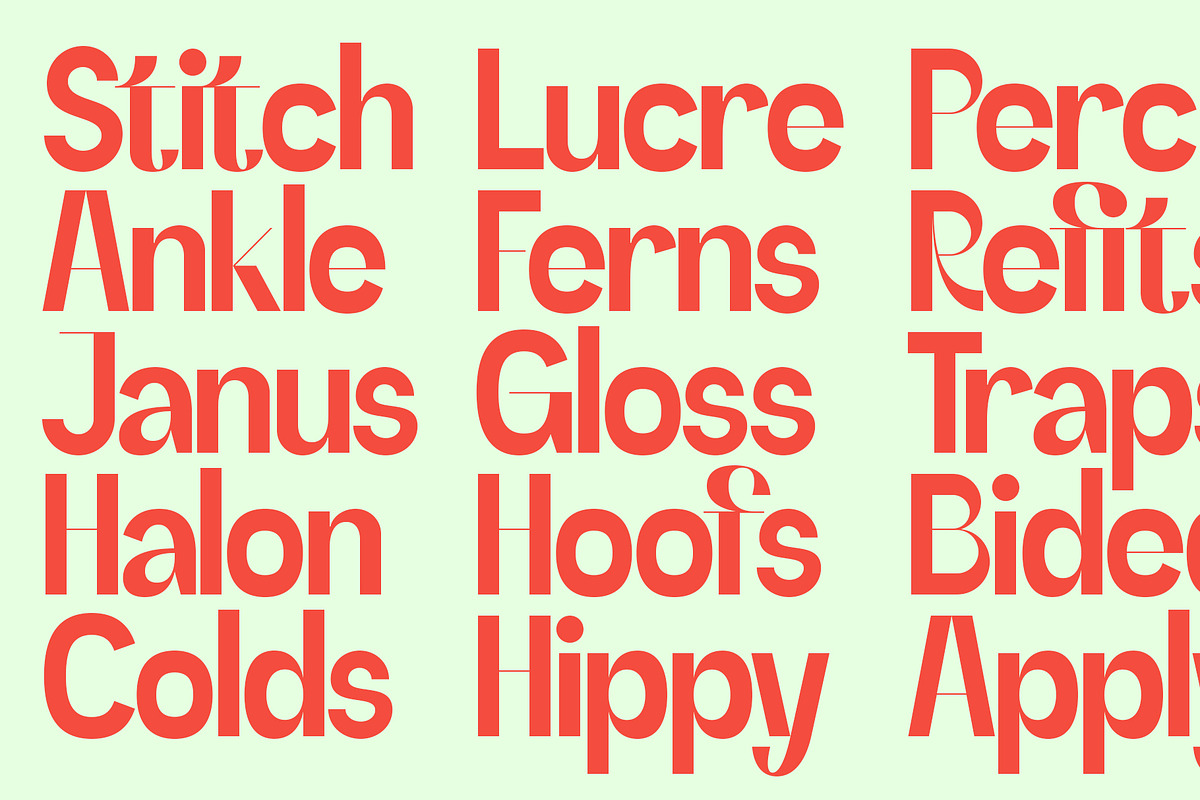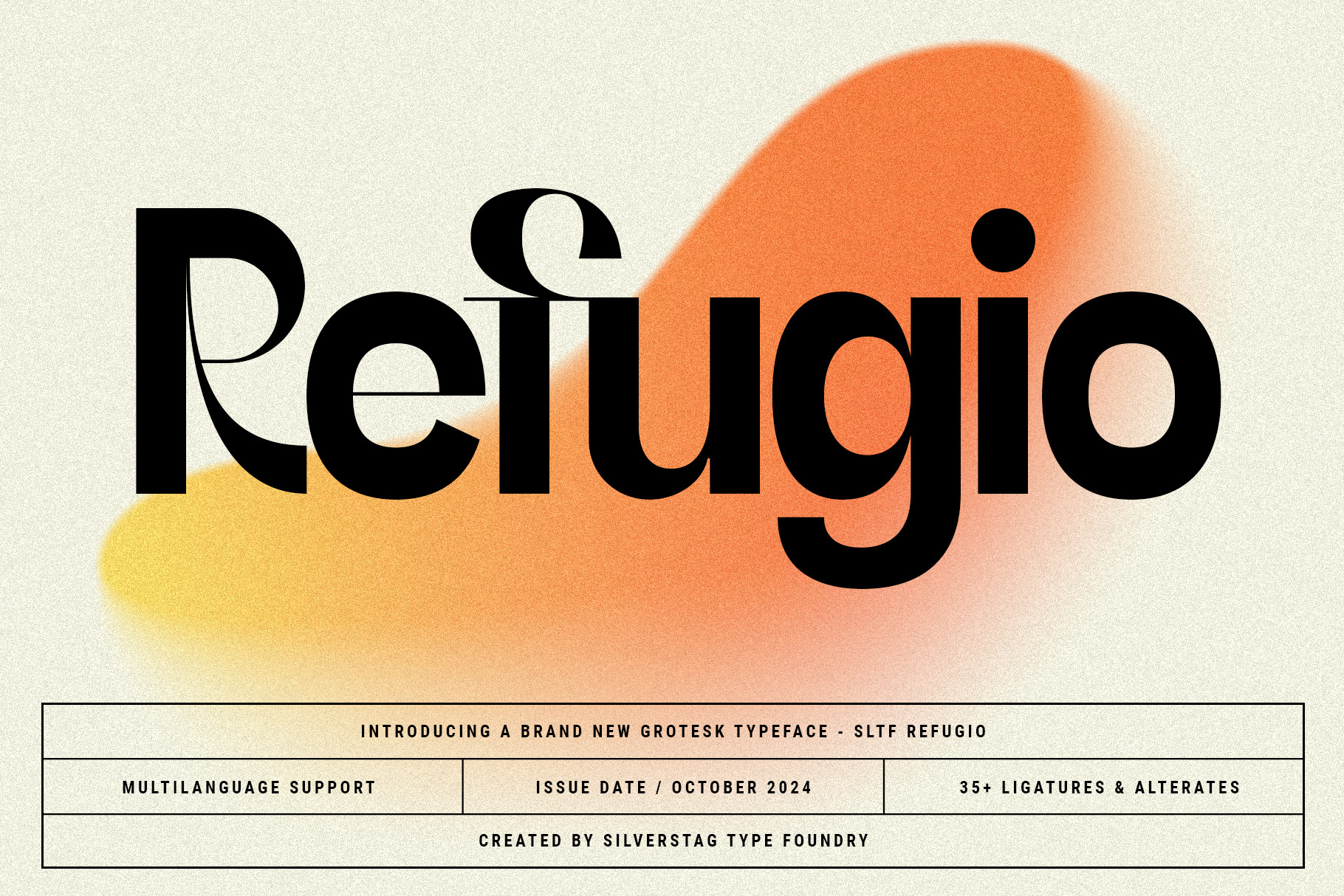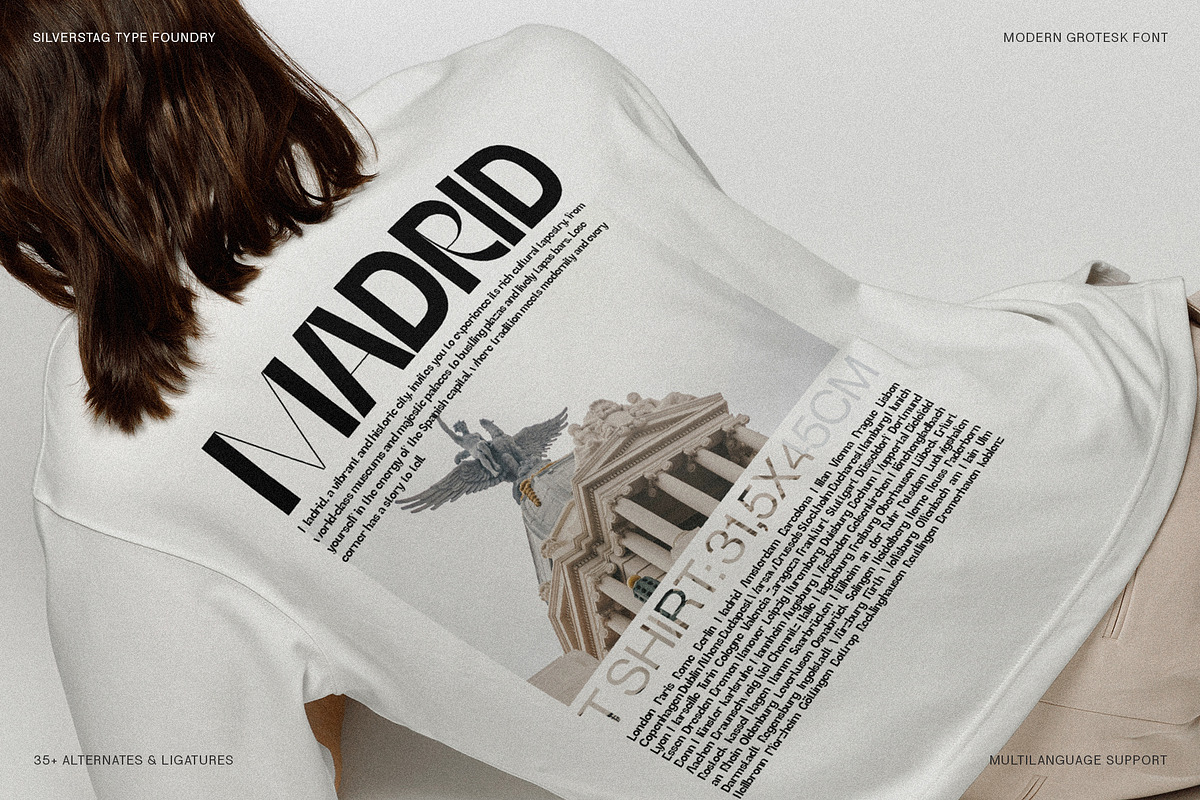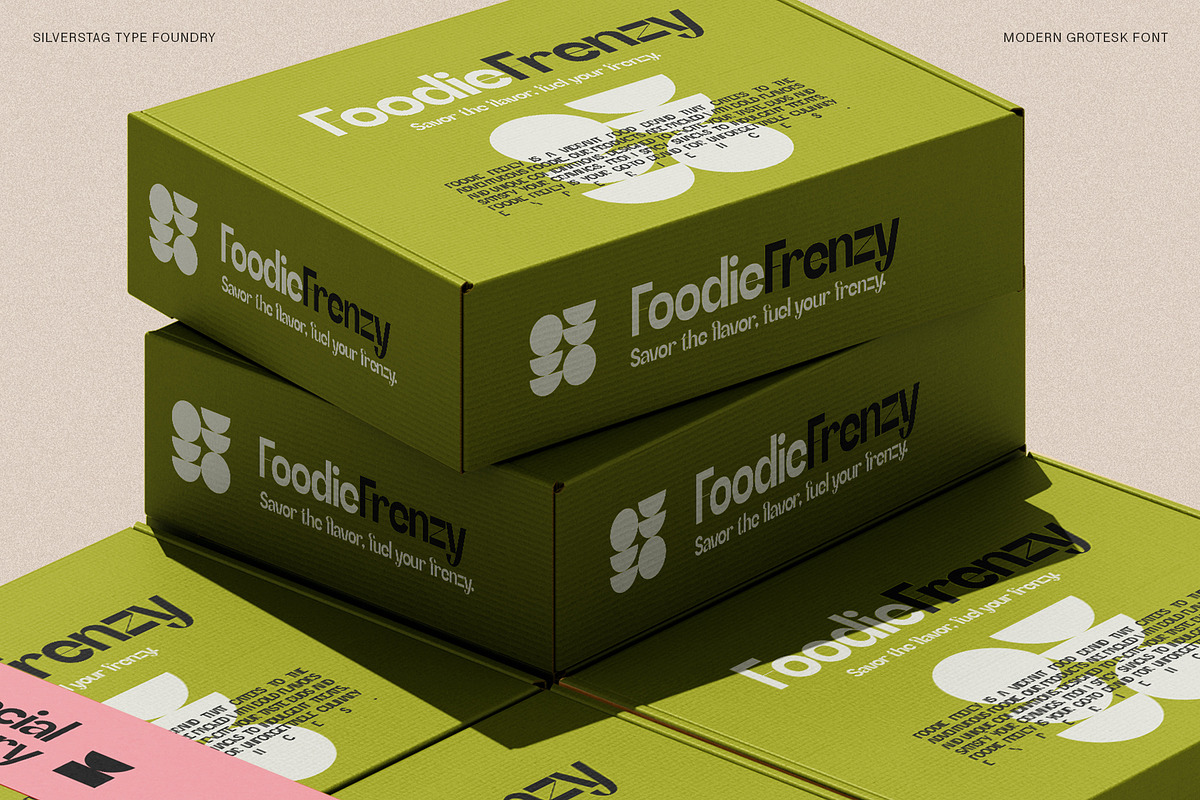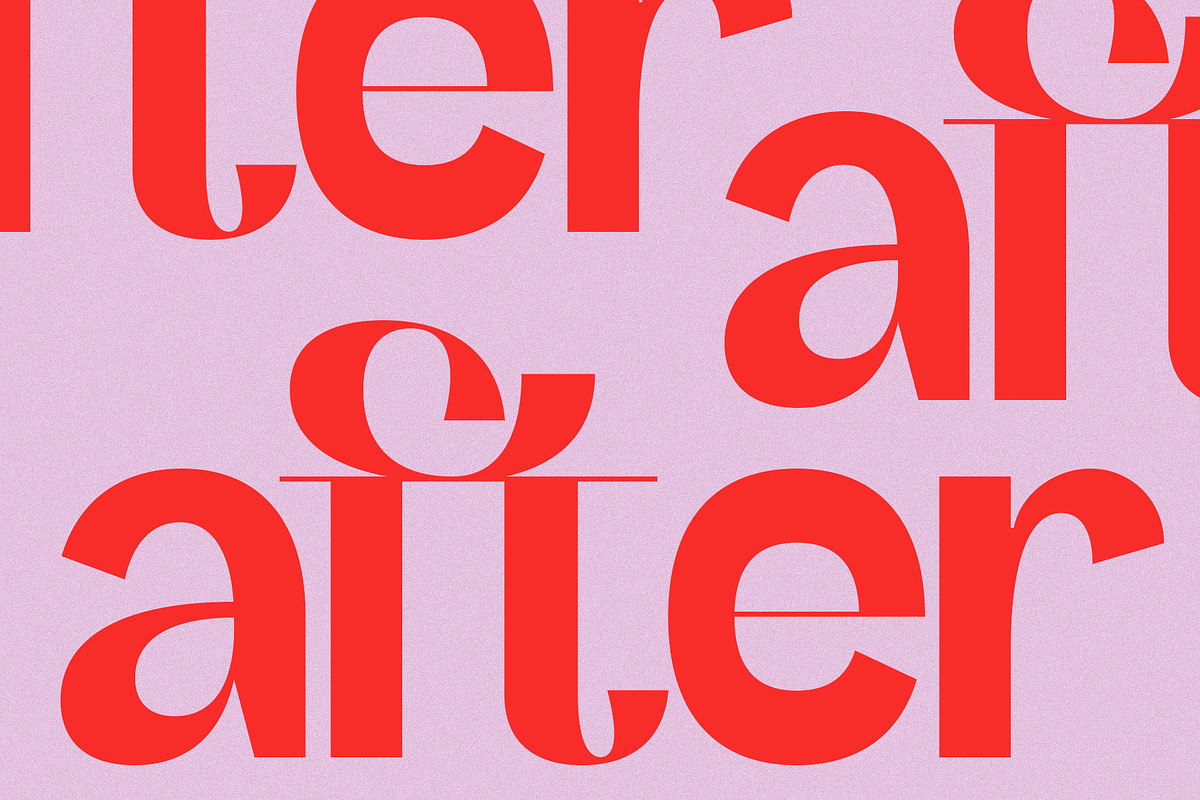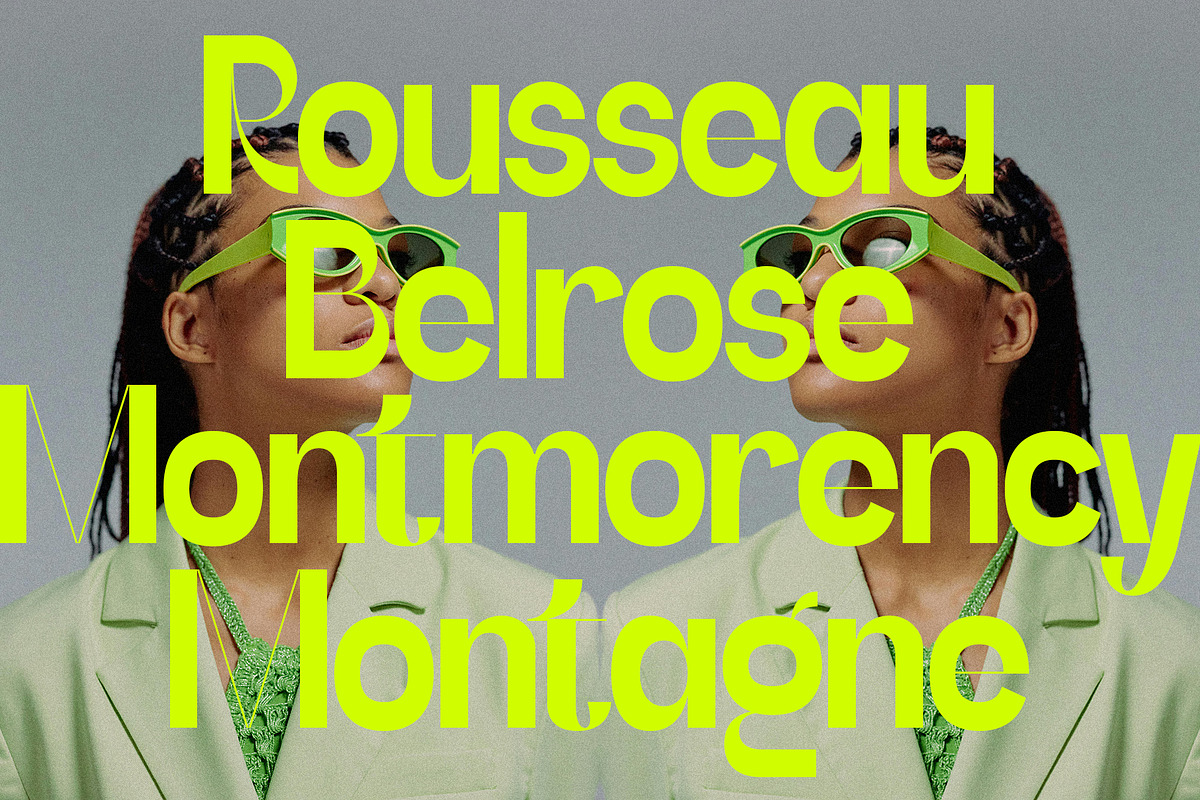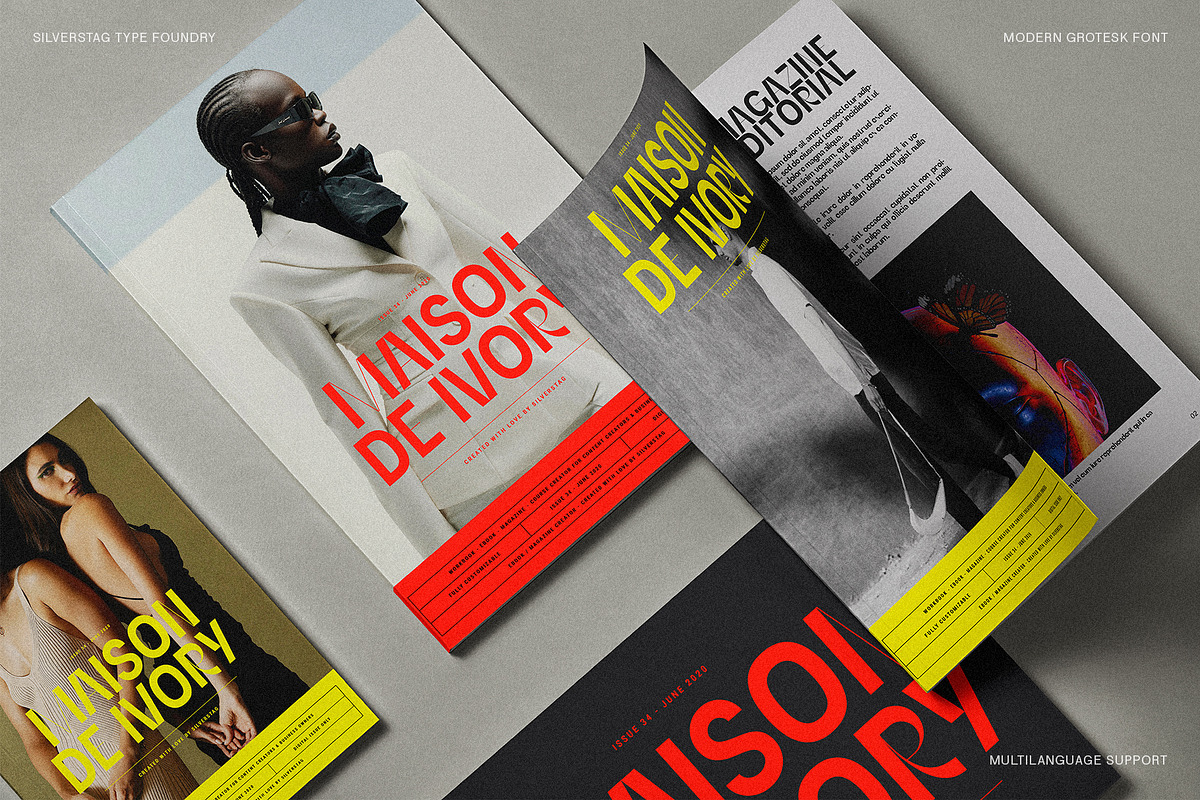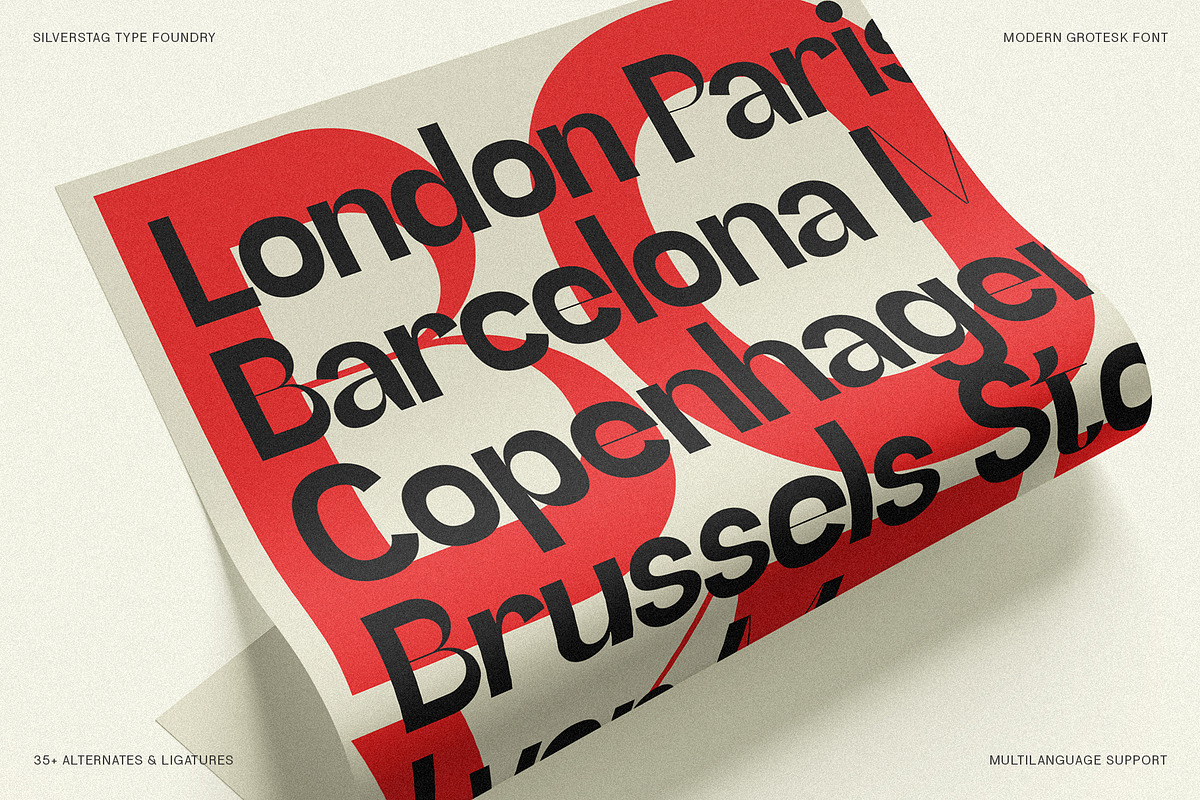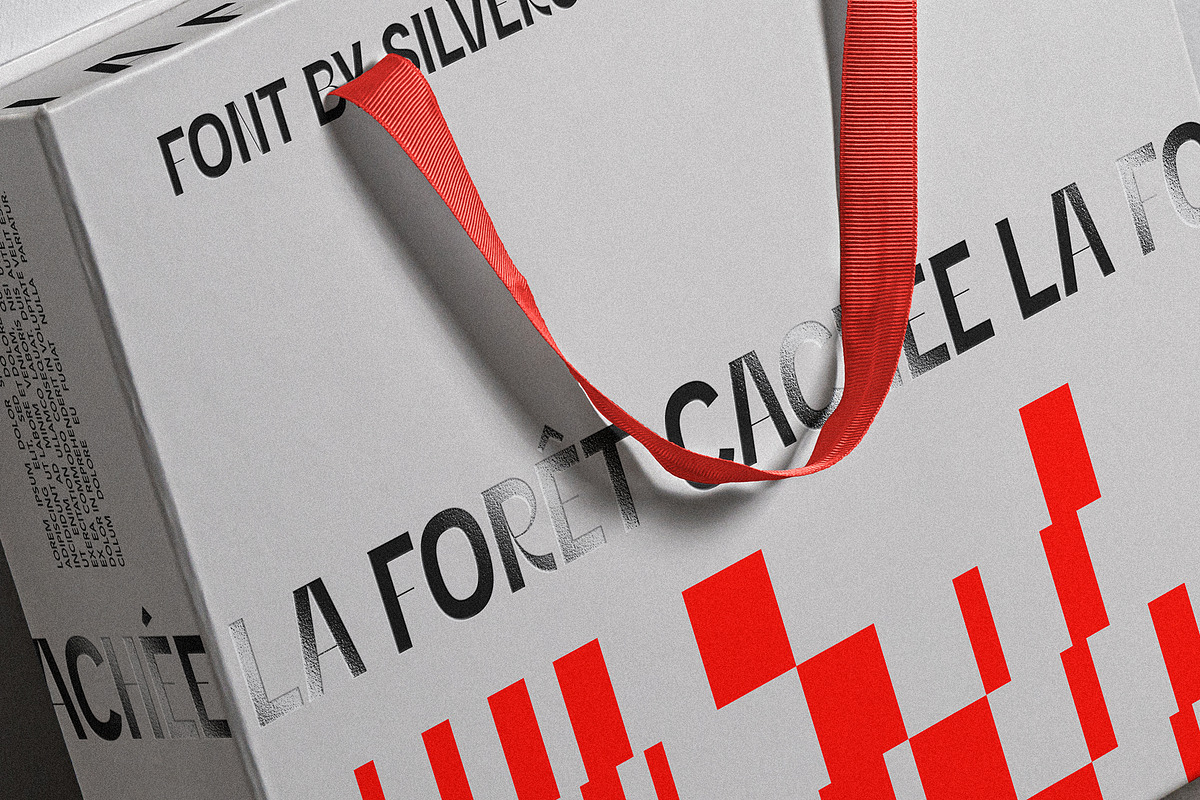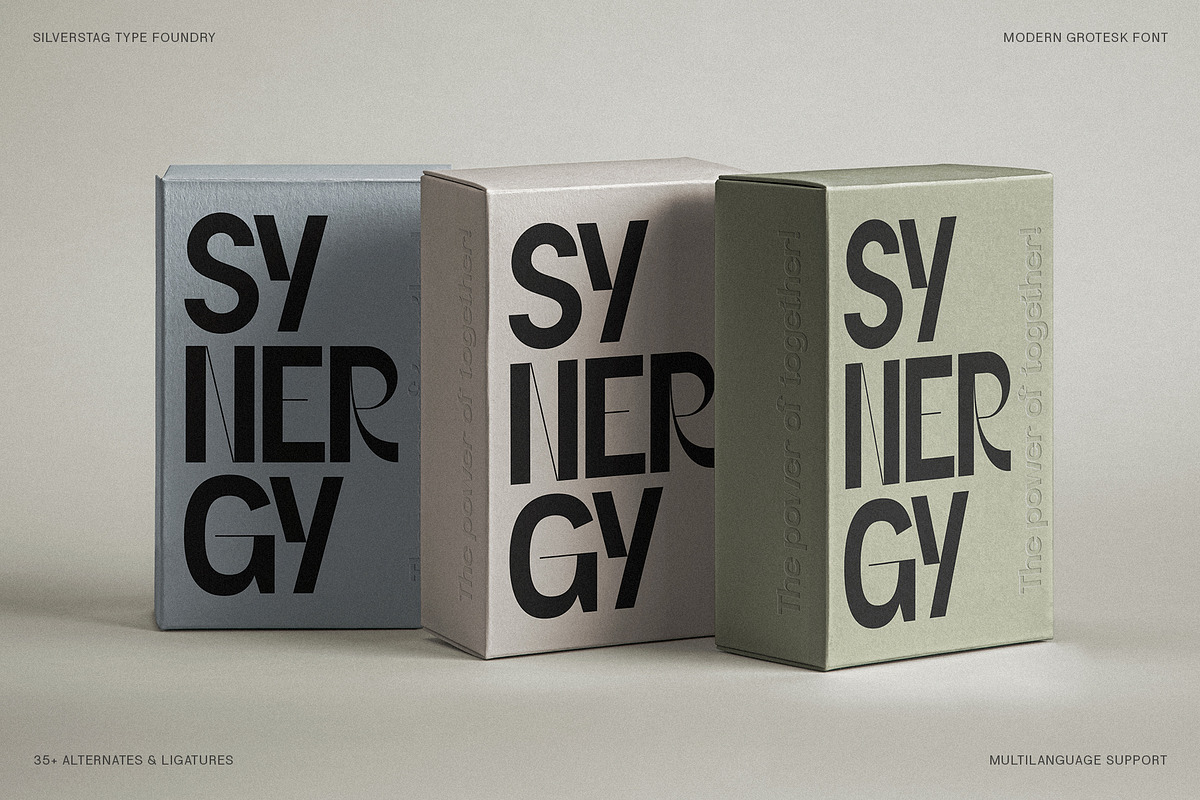
SLTF Refugio - Modern Grotesk Font
SLTF Refugio - A Grotesque Sans Serif with a Modern Soul
Introducing SLTF Refugio, a typeface that embodies the spirit of finding sanctuary in creativity. This grotesk sans serif isn't just a collection of letters; it's a haven of unique curves, chic details, and expressive ligatures, designed to inspire and elevate your designs.
Finding Refuge in Creativity
The art of font design has always been a refuge for me — a space where I can explore ideas, experiment with forms, and lose myself in the creative process. SLTF Refugio is a reflection of that sanctuary, a reminder that within the strokes of each letter lies a world of possibilities.
Refugio is characterized by its distinctive personality. Its letterforms strike a balance between classic grotesque styles and contemporary aesthetics, with unexpected curves and a unique contrast that adds a touch of sophistication. With over 35 ligatures and alternates, this typeface offers endless possibilities for customization and self-expression.
- Versatile: Refugio seamlessly transitions from bold headlines to elegant body text, making it suitable for a wide range of design projects.
- Unique: Its distinctive letterforms and unexpected curves set it apart from traditional grotesk sans serifs.
- Chic: Refugio exudes a sense of modern sophistication, perfect for branding, editorial, and web design.
- Globally Inclusive: With support for over 90 languages, Refugio speaks to a diverse audience.
- Meticulously Crafted: Every detail has been carefully considered to ensure readability, visual appeal, and a truly unique typographic experience.
Where SLTF Refugio shines:
- Branding and Logos: Craft distinctive and memorable brand identities that capture attention.
- Editorial Design: Elevate your magazine layouts, headlines, and article titles with a touch of modern elegance.
- Web Design: Create captivating and user-friendly websites that stand out from the crowd.
- Packaging and Advertising: Design eye-catching materials that leave a lasting impression.
SLTF Refugio is more than just a font; it's a sanctuary for your creativity. It's an invitation to explore new possibilities, express your unique vision, and find refuge in the beauty of typography.